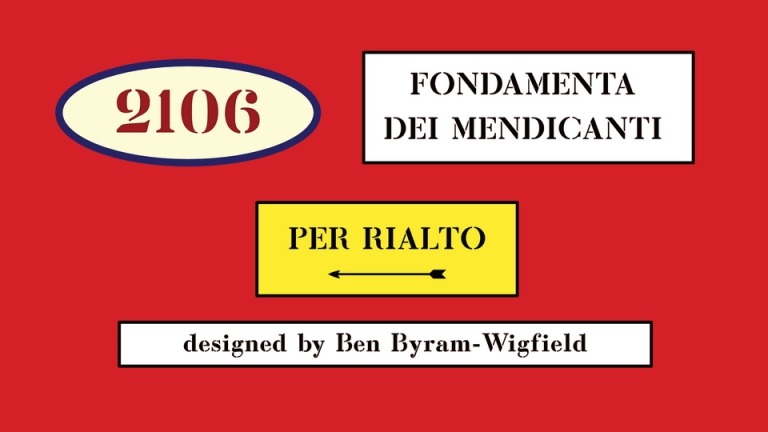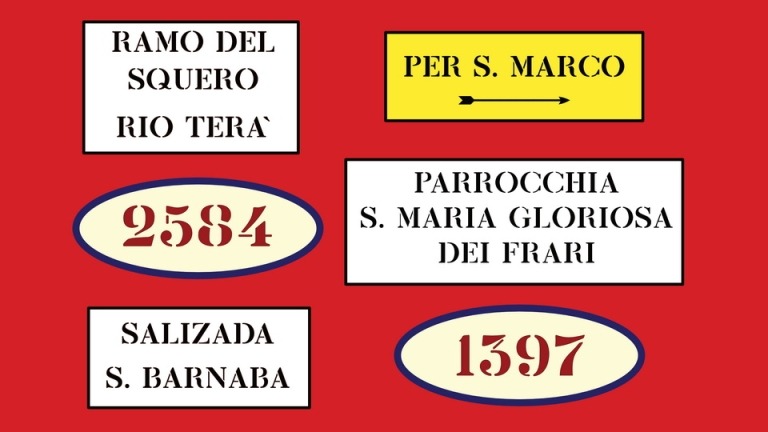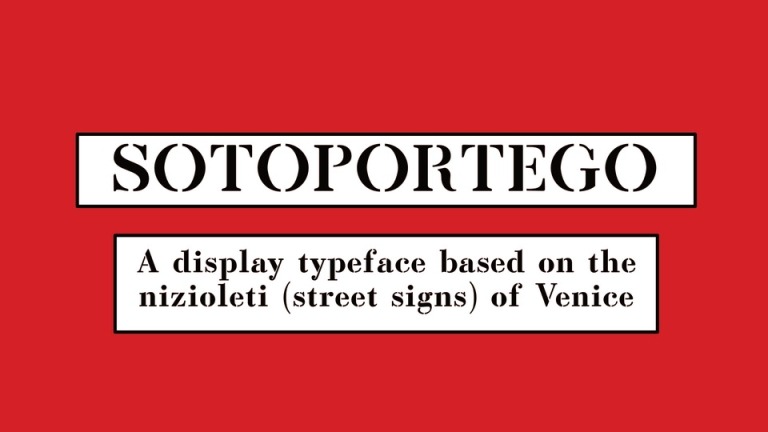
Sotoportego Serif Font is a classic stencil serif typefaceq crafted & designed by Ben Byram-Wigfield. The font is defined by smooth curves and stenciled shapes and is perfect for display or editorial designs. This typeface is perfect for an elegant & luxury logo, book or movie title design, fashion brand, magazine, clothes, lettering, quotes, and so much more.